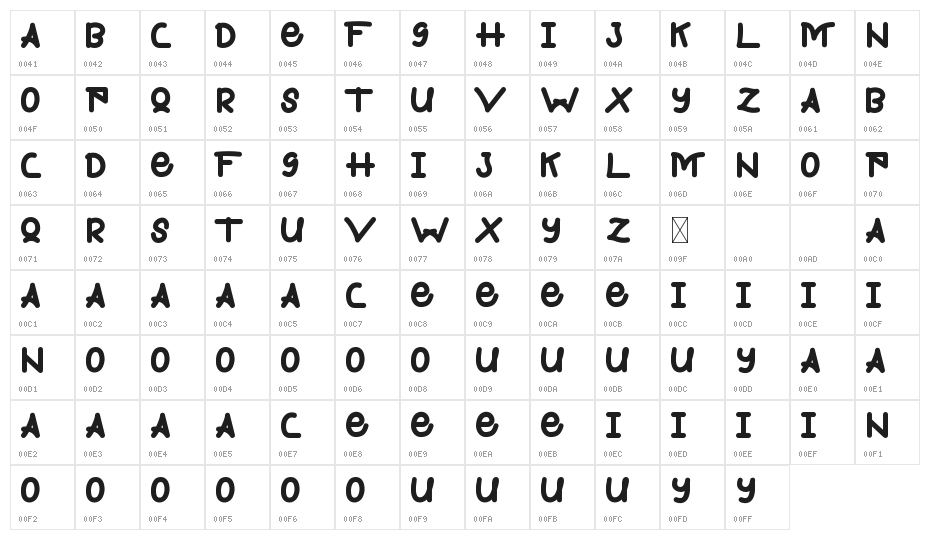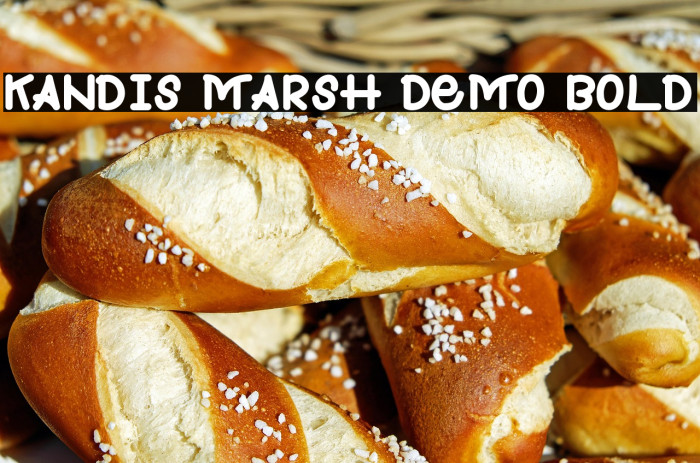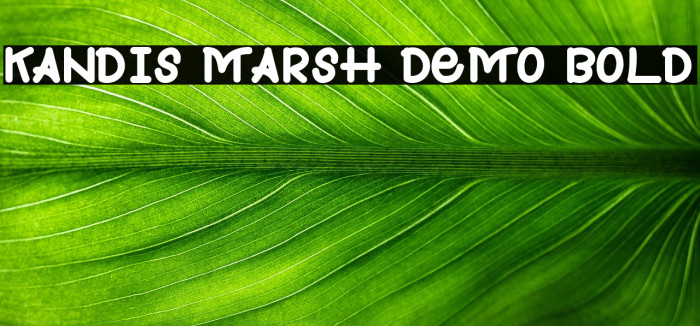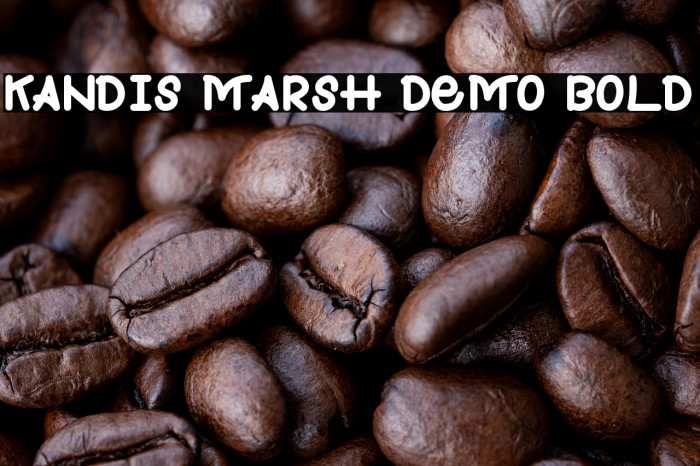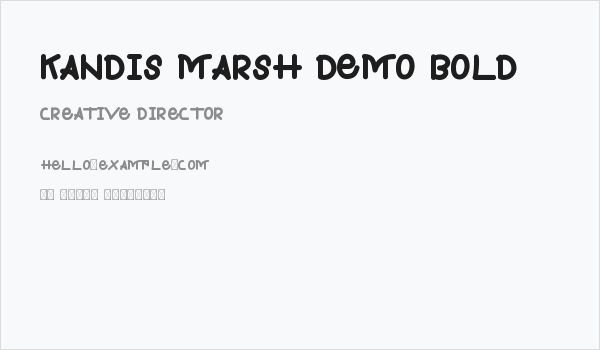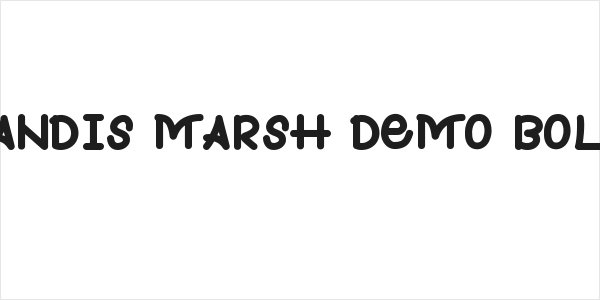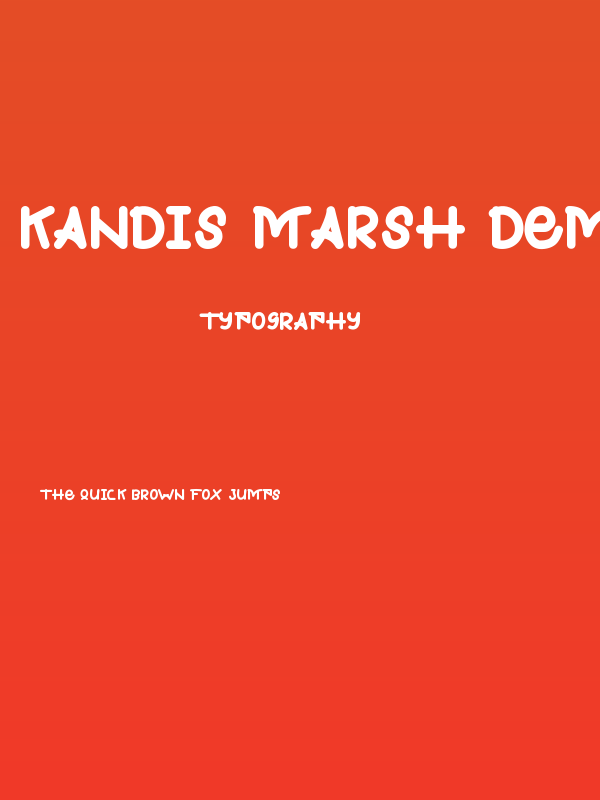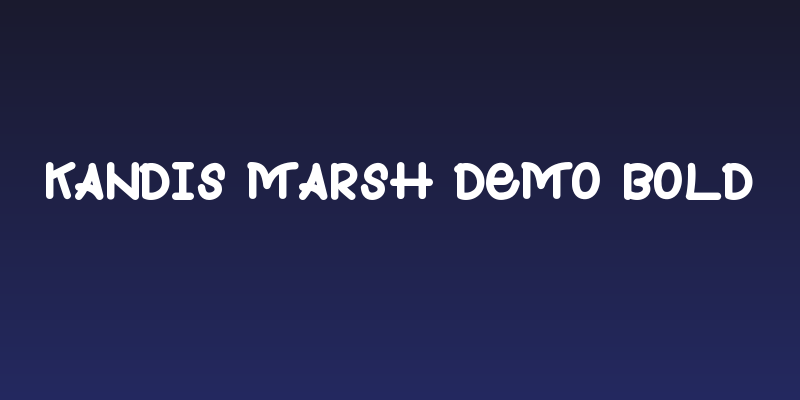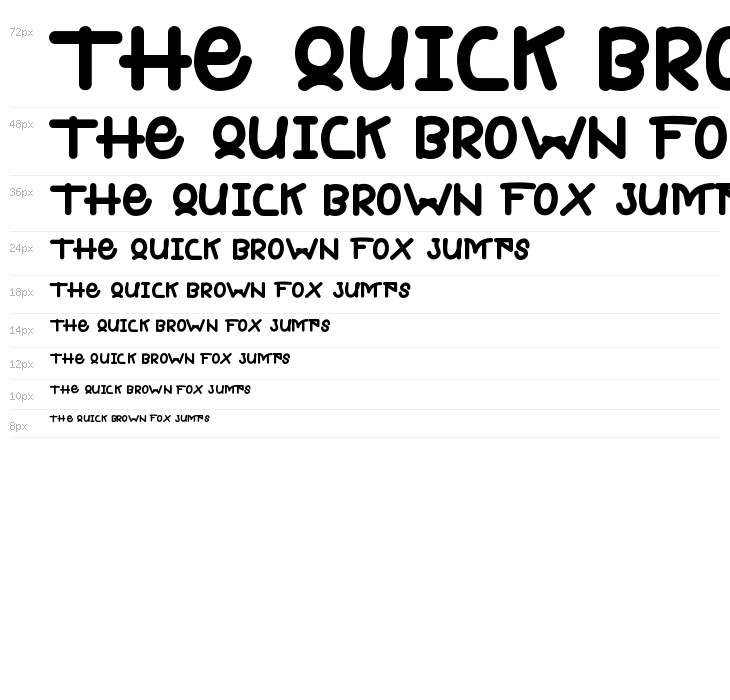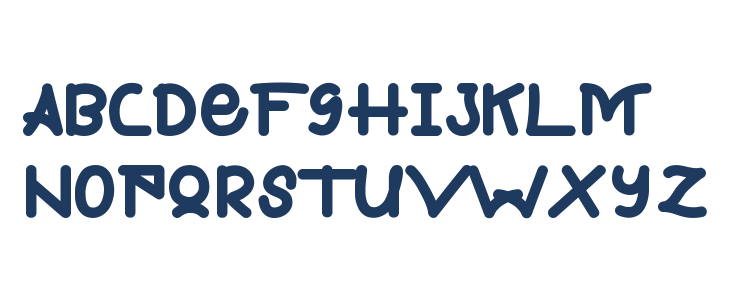
Kandis Marsh Demo Bold Font
Kandis Marsh Demo Bold Description
This font features a playful and bold style with rounded edges and a hand-drawn appearance. The characters are thick and uniform, giving a sense of consistency and strength. The uppercase and lowercase letters maintain a whimsical, almost cartoonish quality, making them stand out in any design. The numbers and special characters follow the same style, ensuring a cohesive look across all text elements. This font is ideal for projects that require a fun and approachable aesthetic.